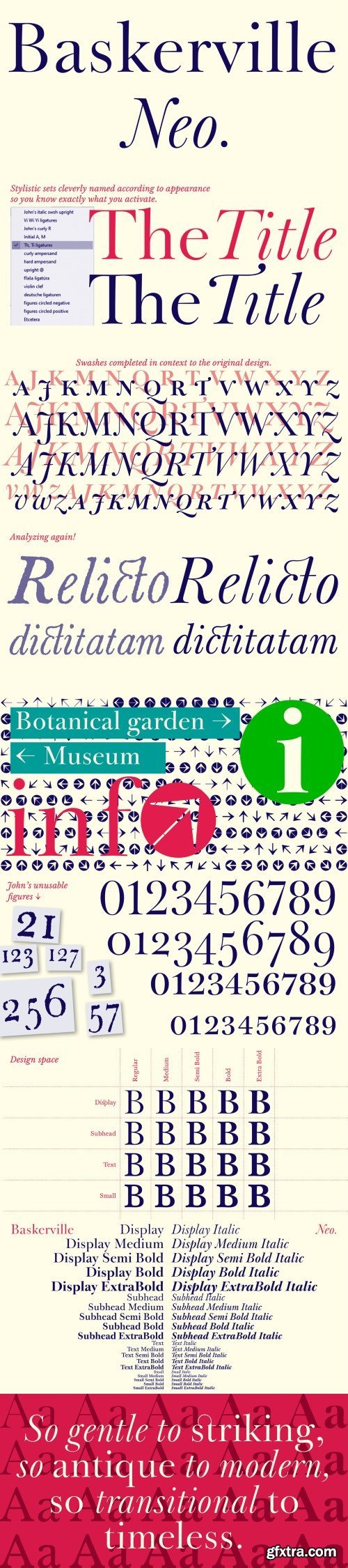
巴斯基尔 Neo 字体家族
One of the most widely used typefaces in the world is actually a legacy of 18th century aesthetics, representing the spirit of late Baroque design, architecture, fashion and society. It has been created and printed for millions of readers around the world for more than two and a half centuries. It influenced many modern typographers. It shaped culture, education, entertainment and science, but also the development of typography itself. As a calligrapher and technical innovator, Baskerville invented new design, papermaking and printing methods, and his typography is very natural and legible to this day. Graphic design today calls for clean and minimalistic solutions, where the use of historical typefaces can achieve a vivid contrast with contemporary elements on the page or screen. Baskerville is undoubtedly the best choice for any kind of publishing house. In keeping with the original inventor’s spirit of excellence, we hereby offer its most advanced digital version. This is not a precise remake of rare Baskerville prints or a restoration of the original punches cut by John Handy, but rather our ideal essence of transitional typography. The old masters were limited by the technology of the time, but today we can dare to have very fine lines, unlimited ligatures, size variations and sophisticated OpenType functions. Drawing, programming, proofing and testing took us many years of development and brought thousands of new letters and dozens of language options. We are convinced that your readers will enjoy this font mainly for reading extensive works, but also for creating corporate identity, orientation systems and cultural posters. Baskerville is perfectly modern in its antiquity, striking in its modesty and timeless in its transiency.